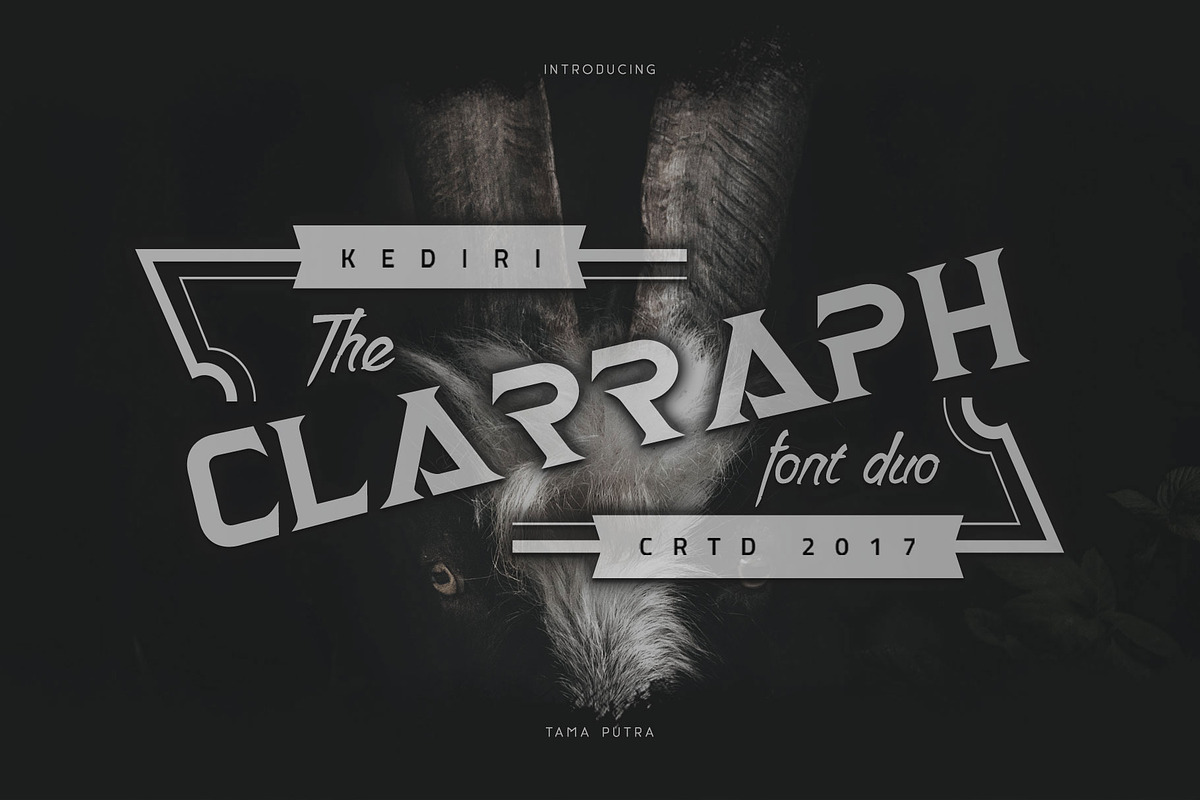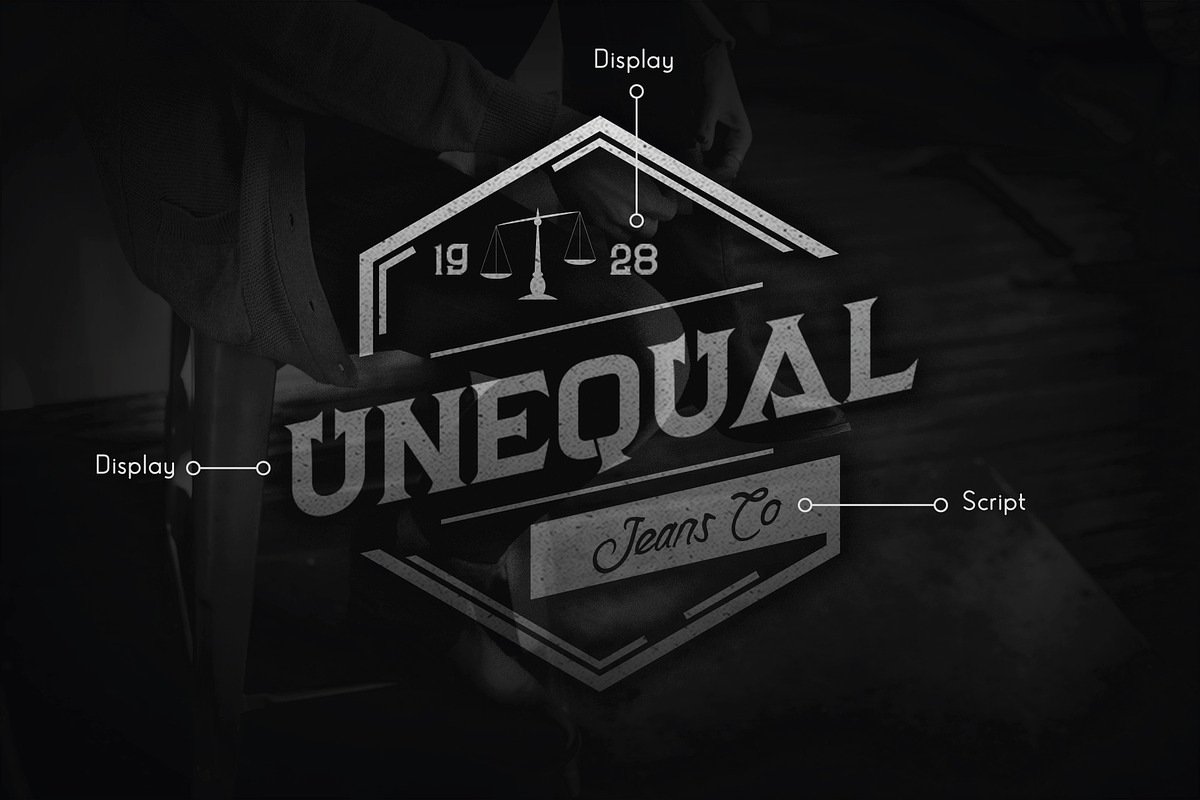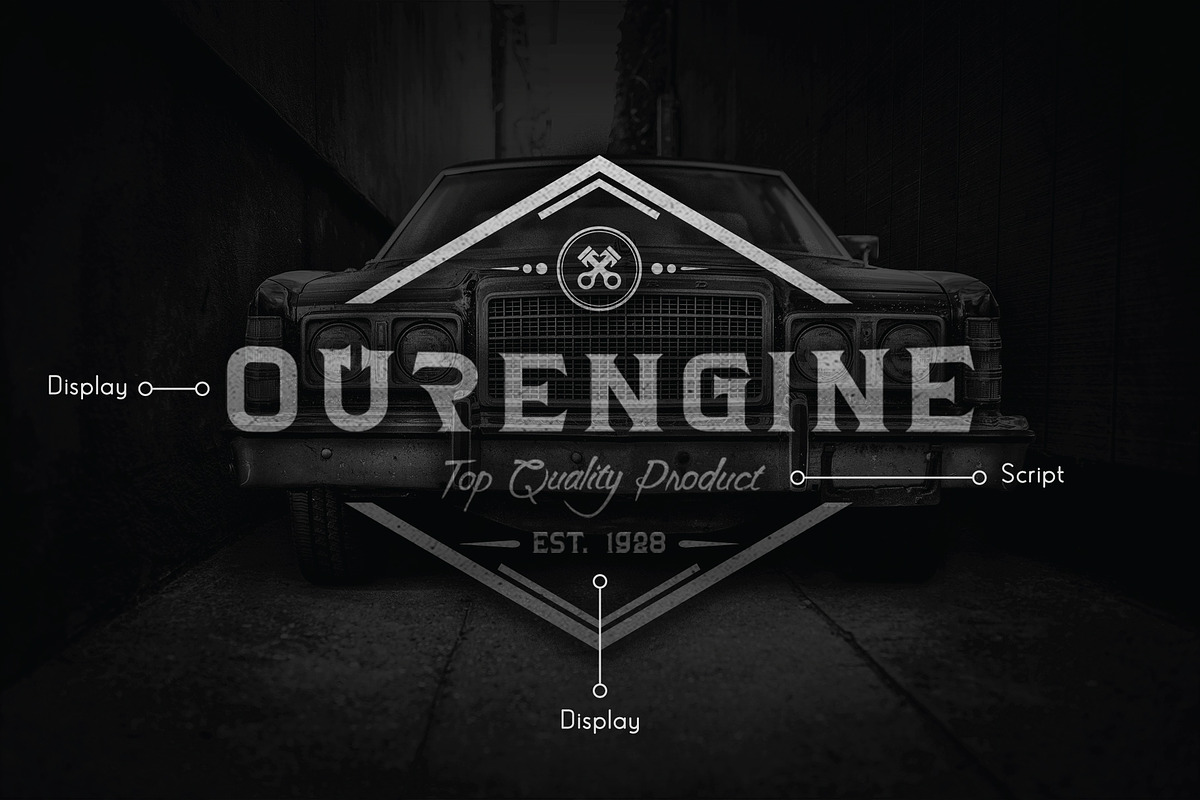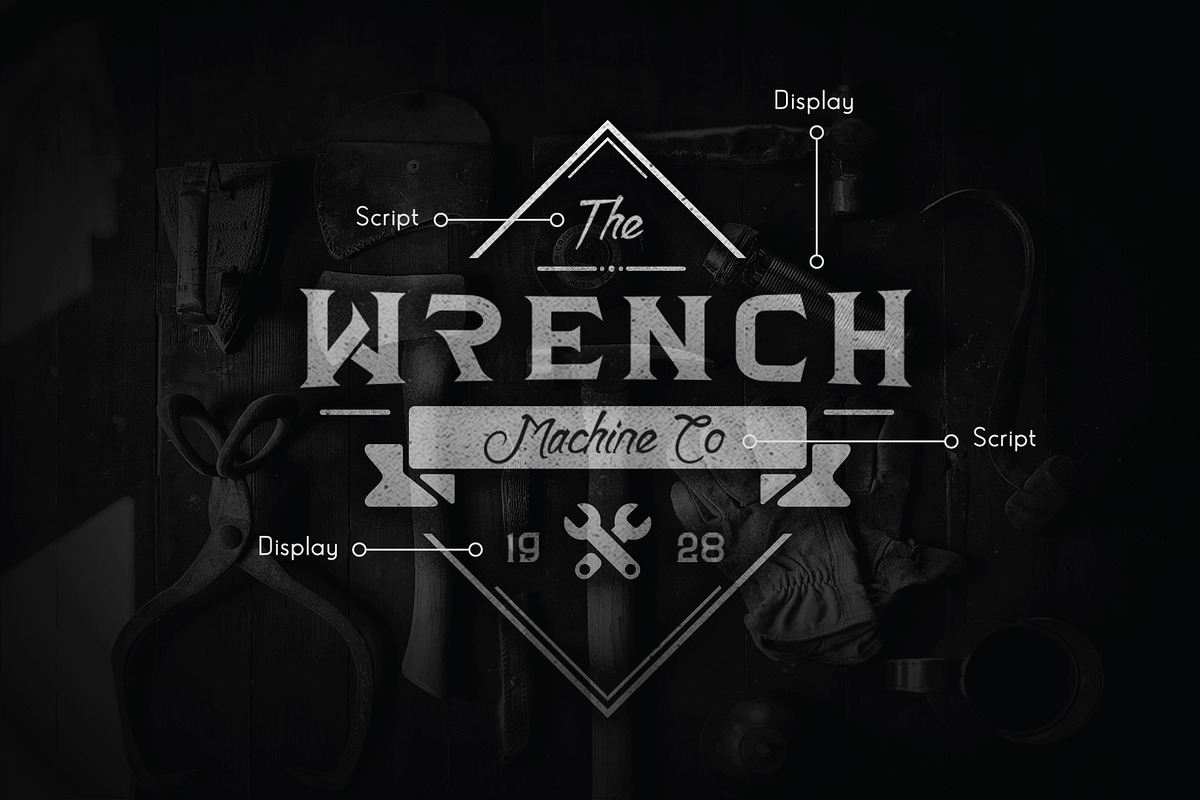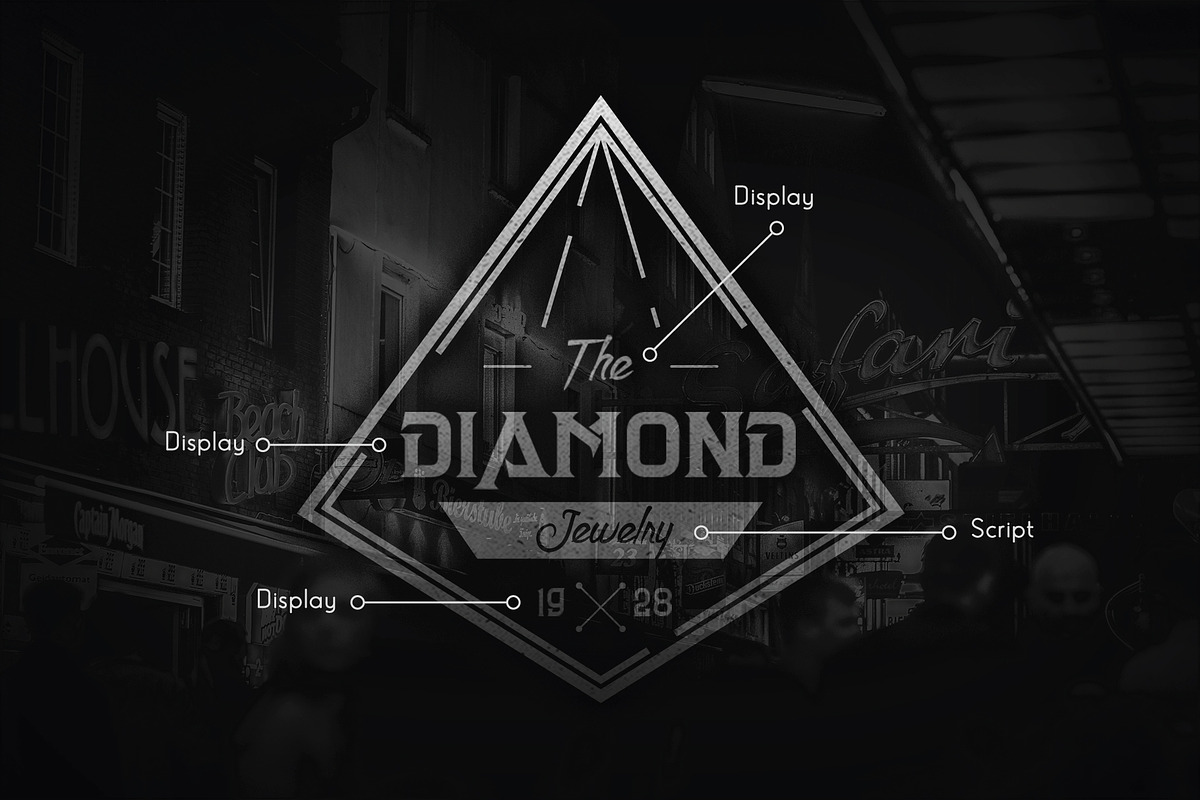
Clarraph Font
Clarraph Font by Vacatype Co. is a font selected for branding, posters, packaging, typography.
- It includes multi-lingual and currency support, numerals, and punctuation.
- Character Set A-Z (Uppercase & Lowercase)
- Numerals & Punctuation
- ss01, ss02
- Clarraph Regular
- Clarraph Heavy
- Clarraph Script Regular
Why Clarraph Font is worth a look
Clarraph Font by Vacatype Co. fits naturally into Branding, posters, packaging, typography.